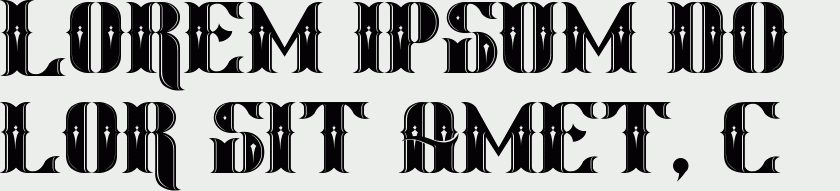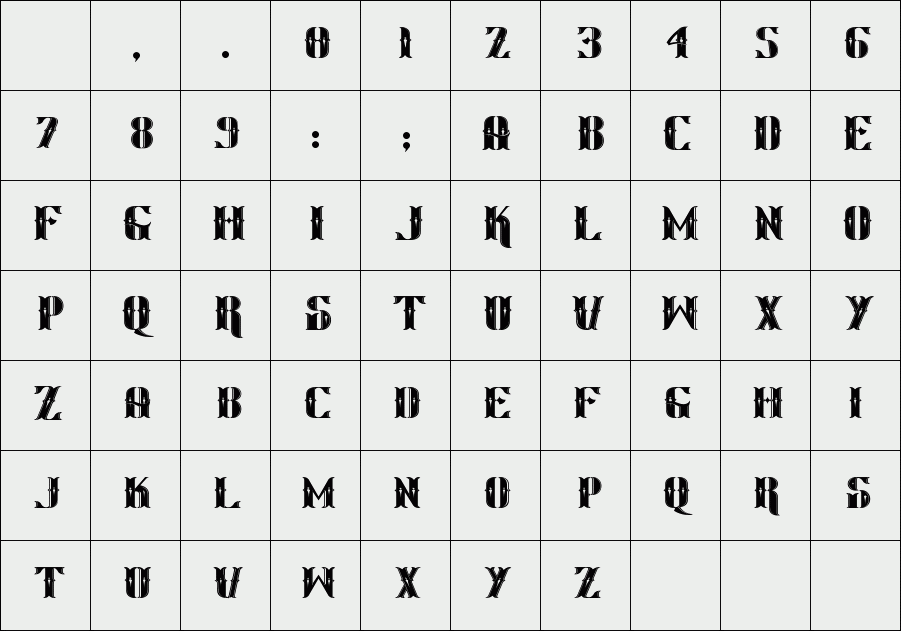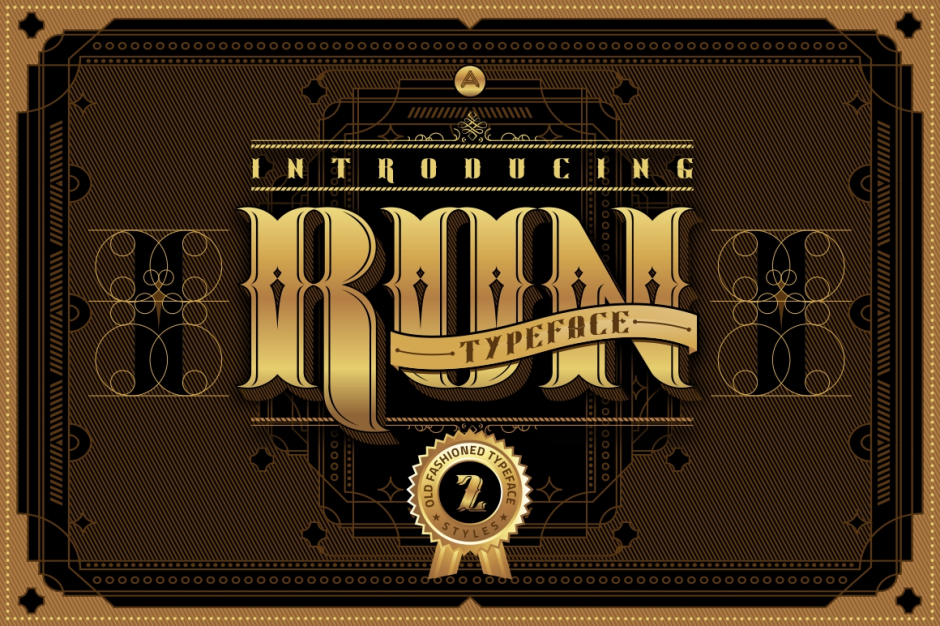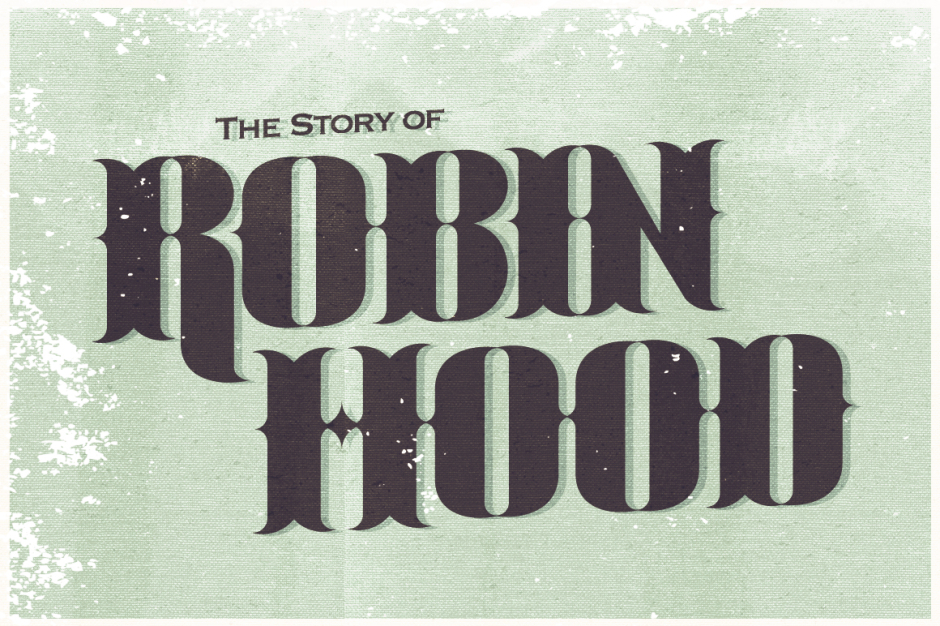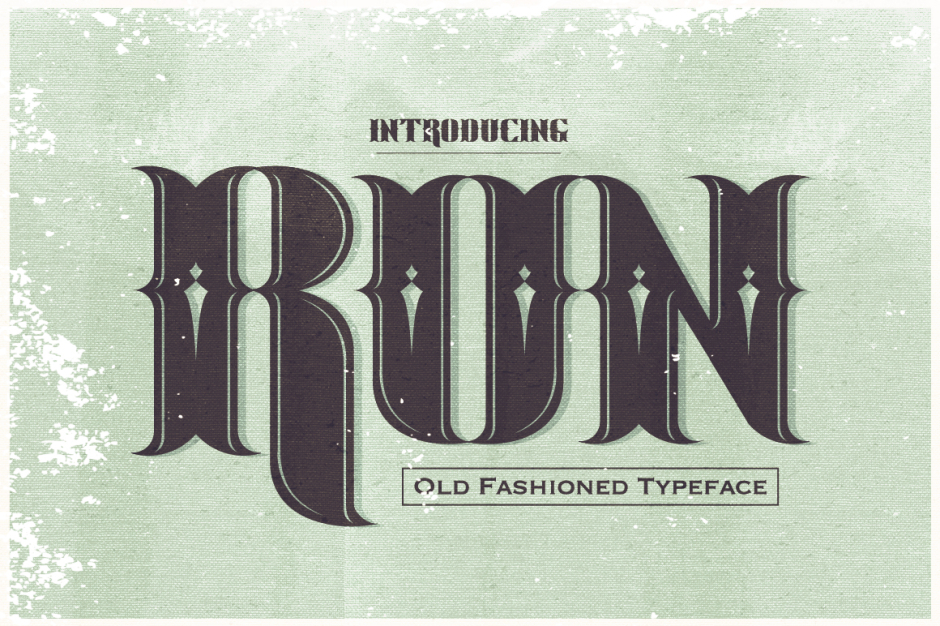
Run Typeface
Run typeface, its an old fashioned modern vintage style type design. its perfect for your modern or vintage design projects. coming with 2 different styles, you can mix and match them.